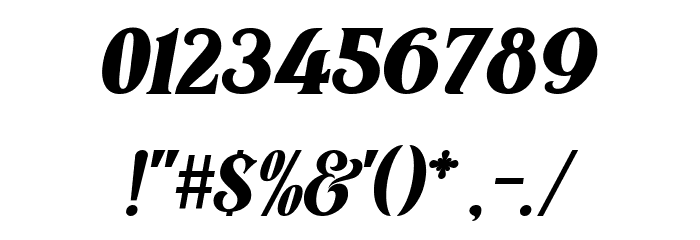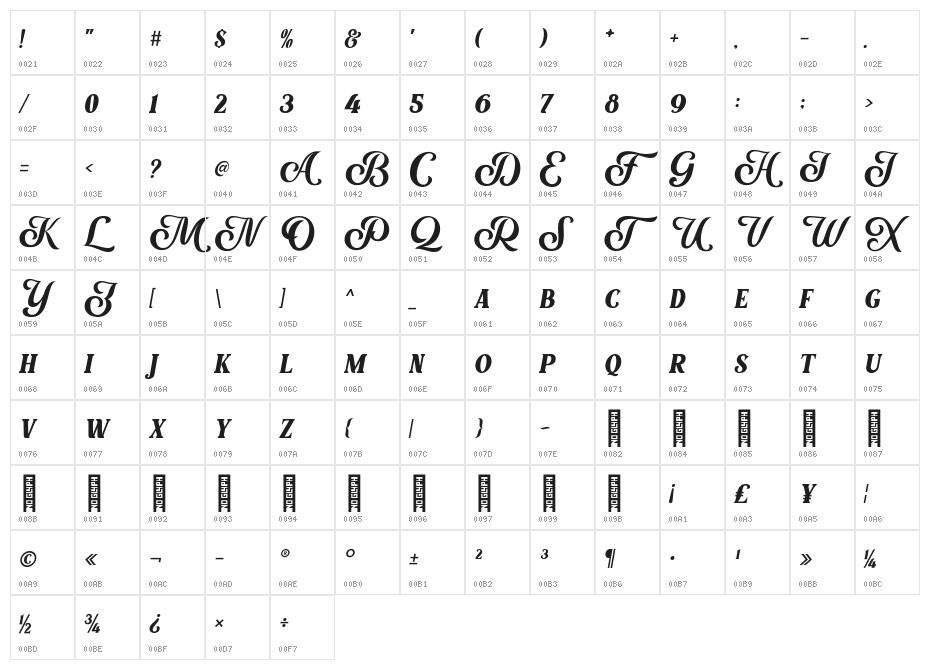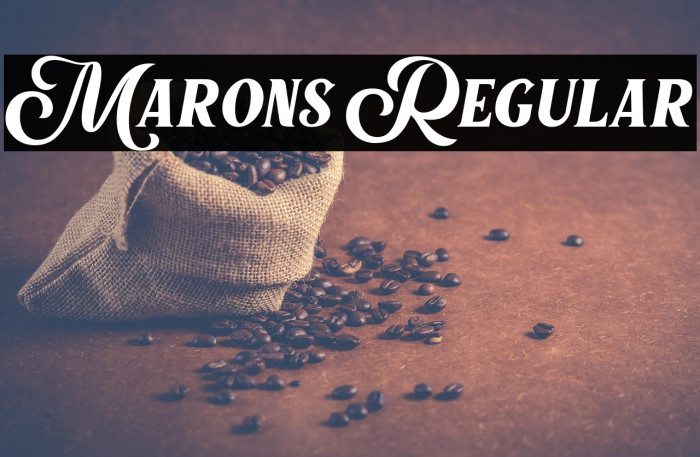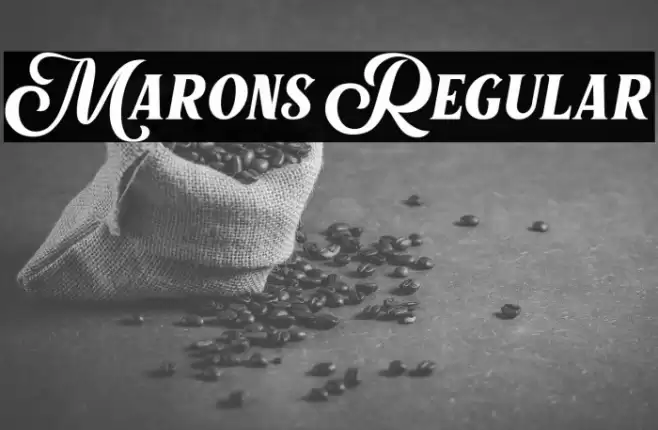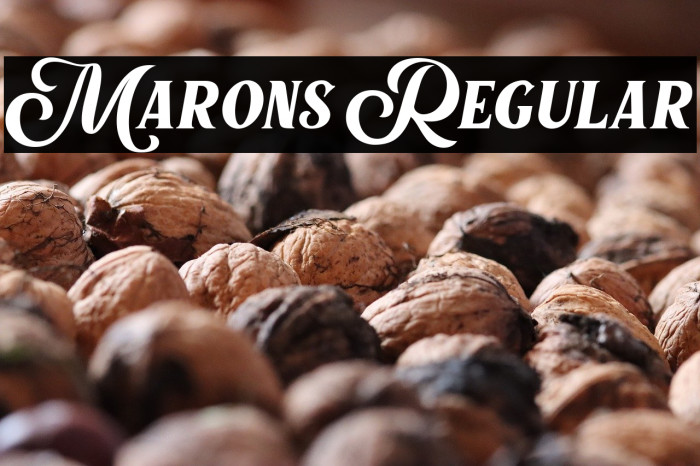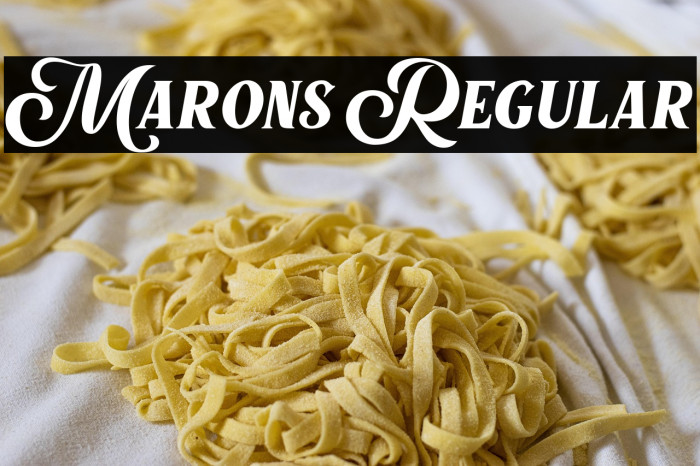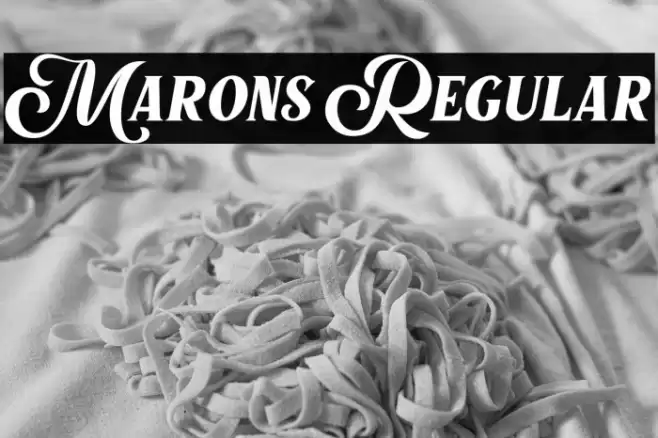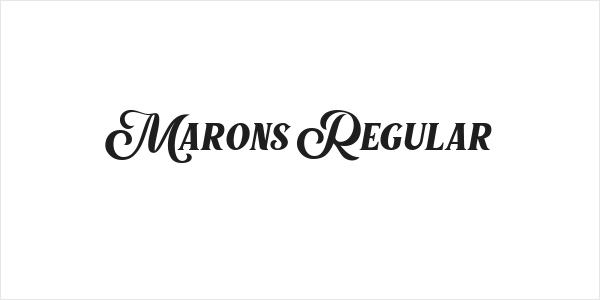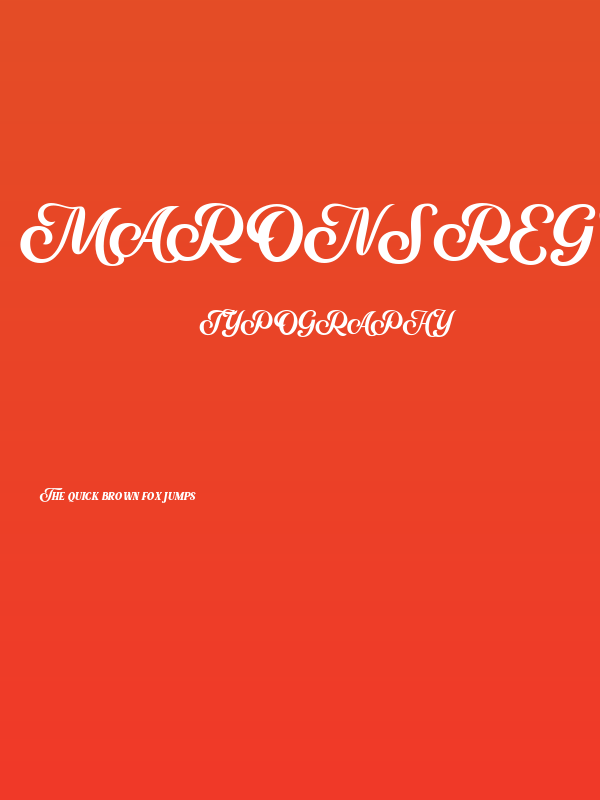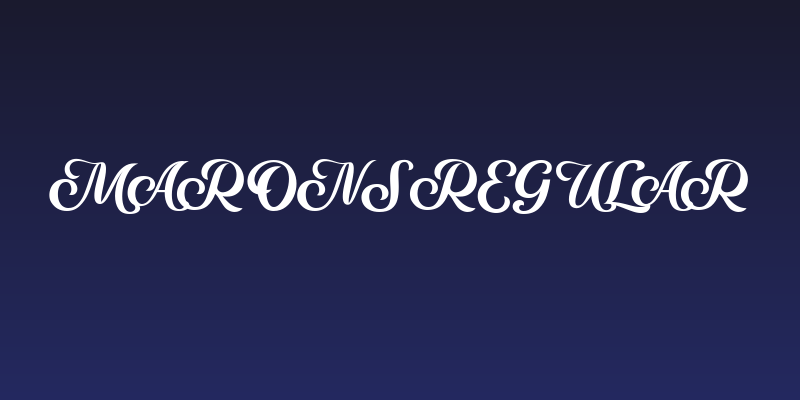
Marons Regular Font
Marons Regular Description
This font features a dynamic blend of script and serif styles, offering a unique and elegant appearance. The uppercase letters are characterized by flowing, cursive strokes with decorative flourishes, adding a touch of sophistication and charm. The lowercase letters maintain a similar style, ensuring consistency and readability. The numerals are bold and clear, making them suitable for various applications. Special characters are designed with the same attention to detail, enhancing the font's versatility. Overall, this font combines traditional elegance with a modern twist, making it ideal for creative and formal projects.
| Use Case | Headlines, Invitations, Branding |
| Proposed Projects | Ideal for wedding invitations, luxury branding, elegant packaging, and decorative headlines. |